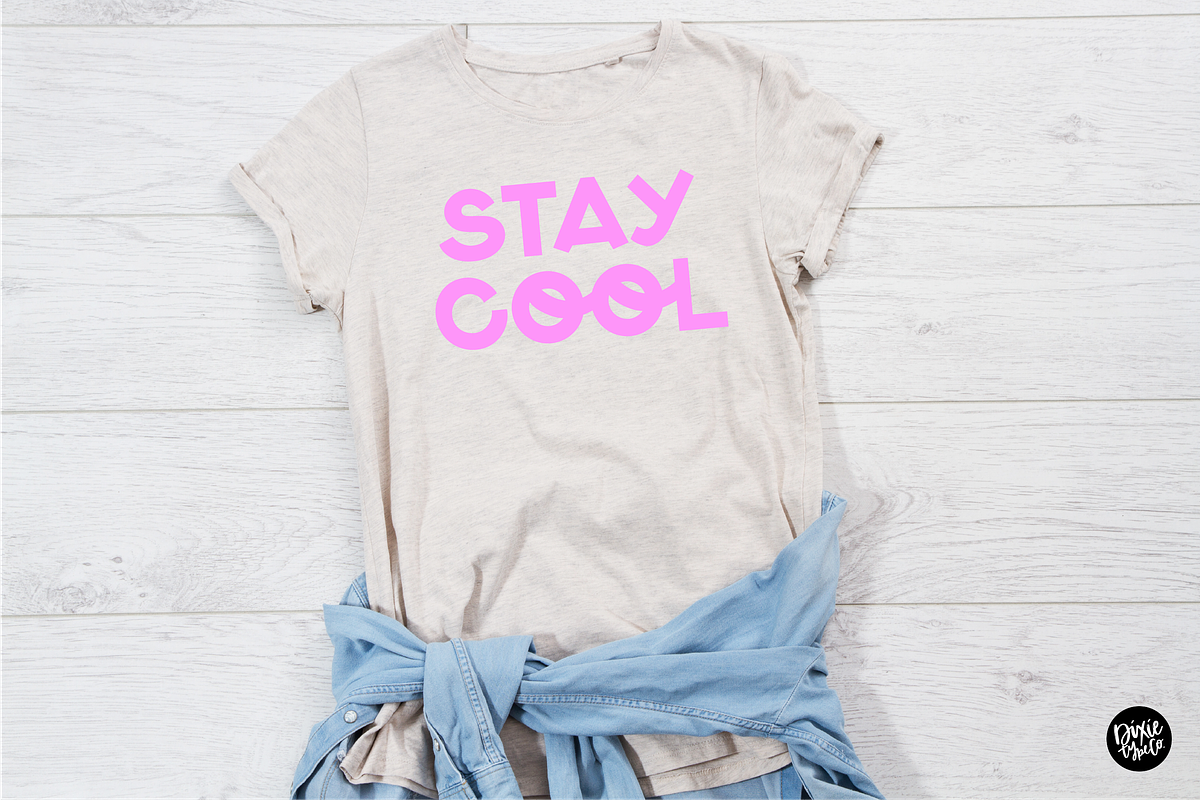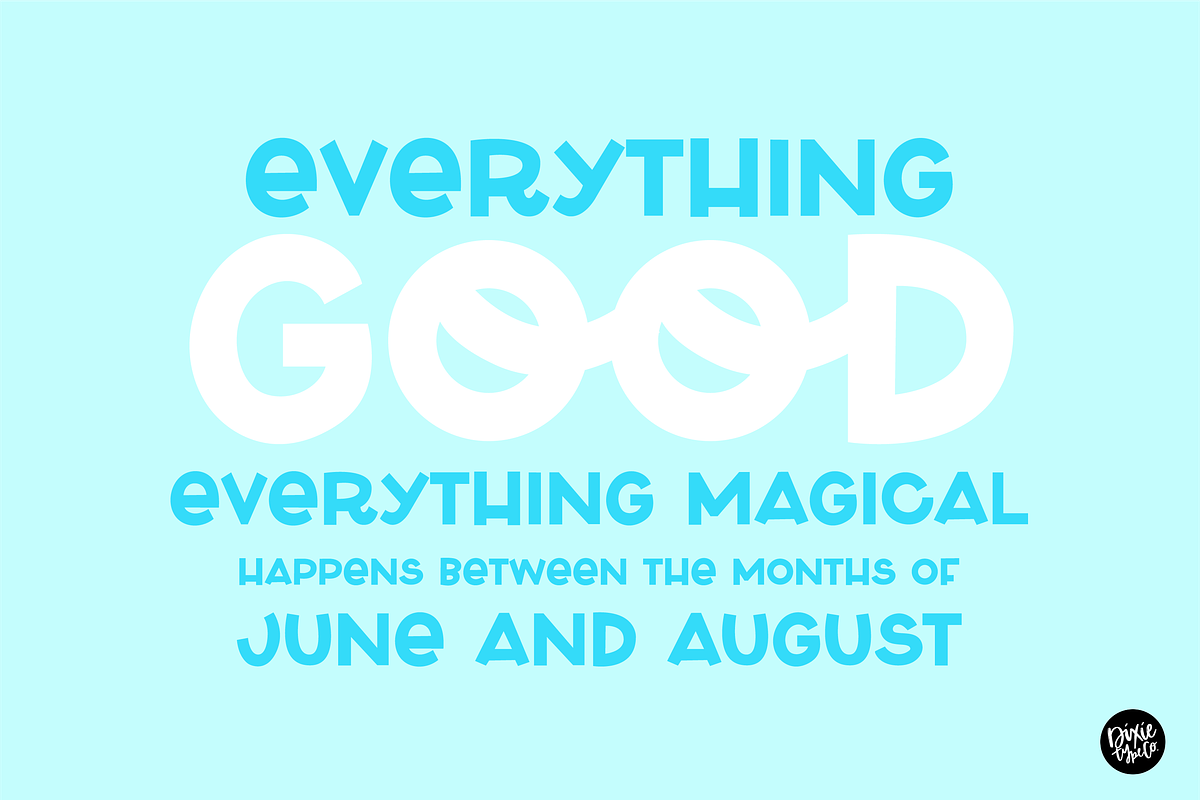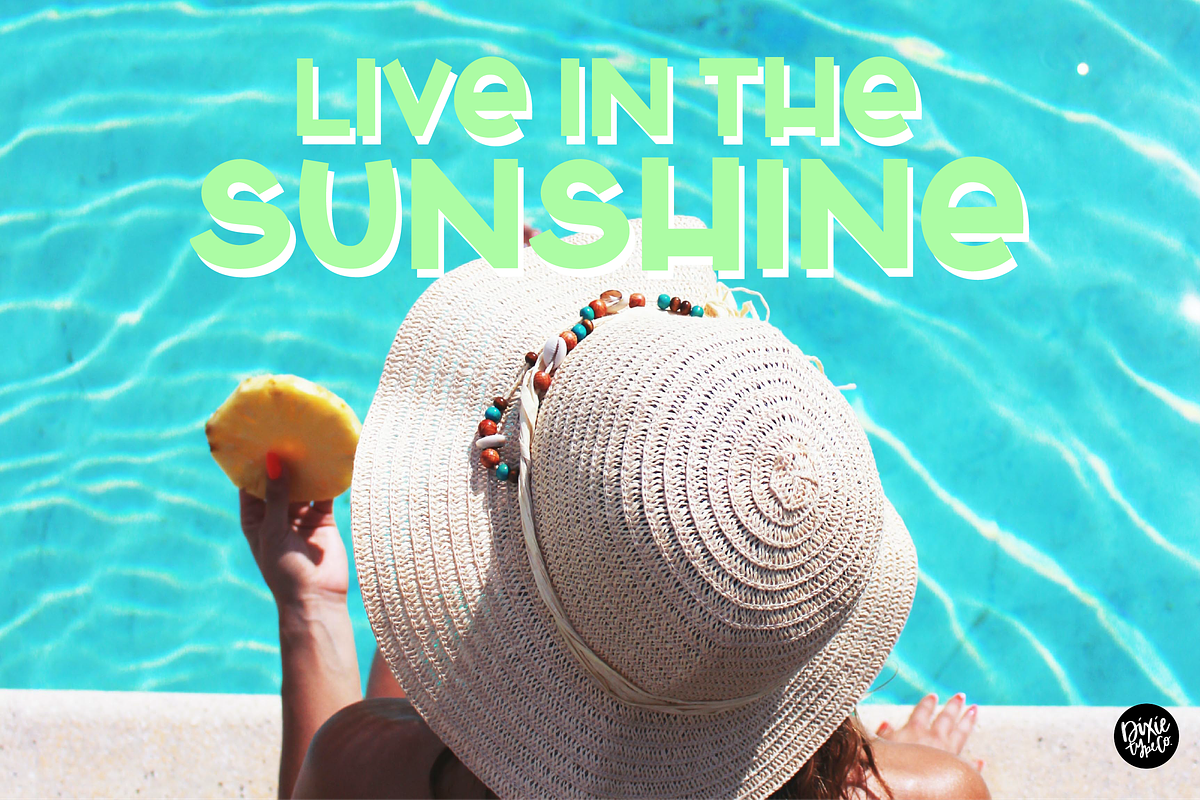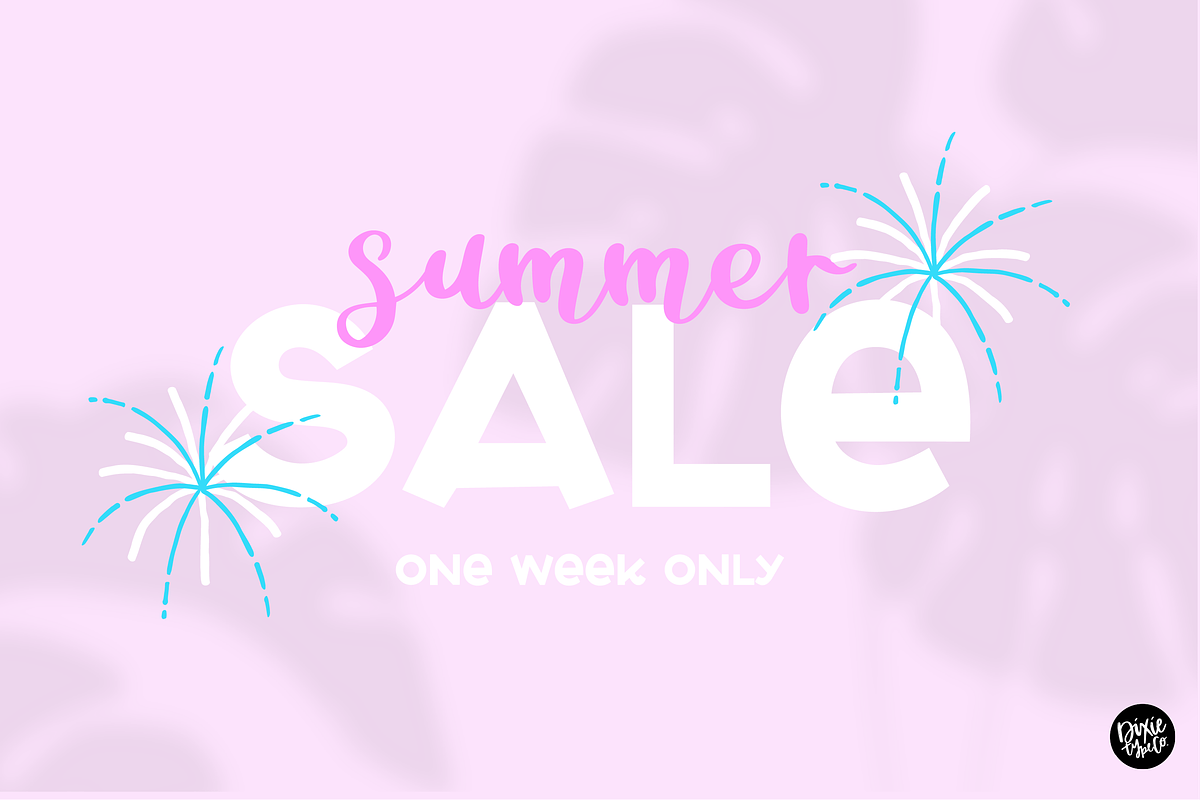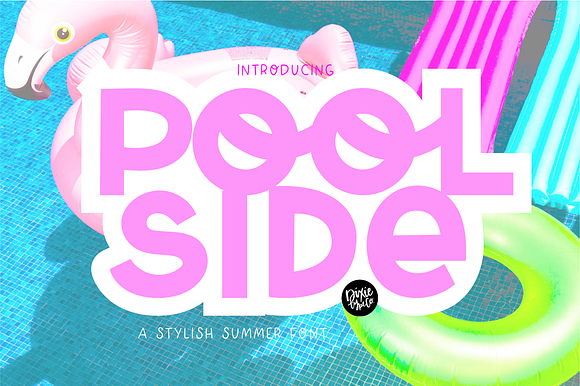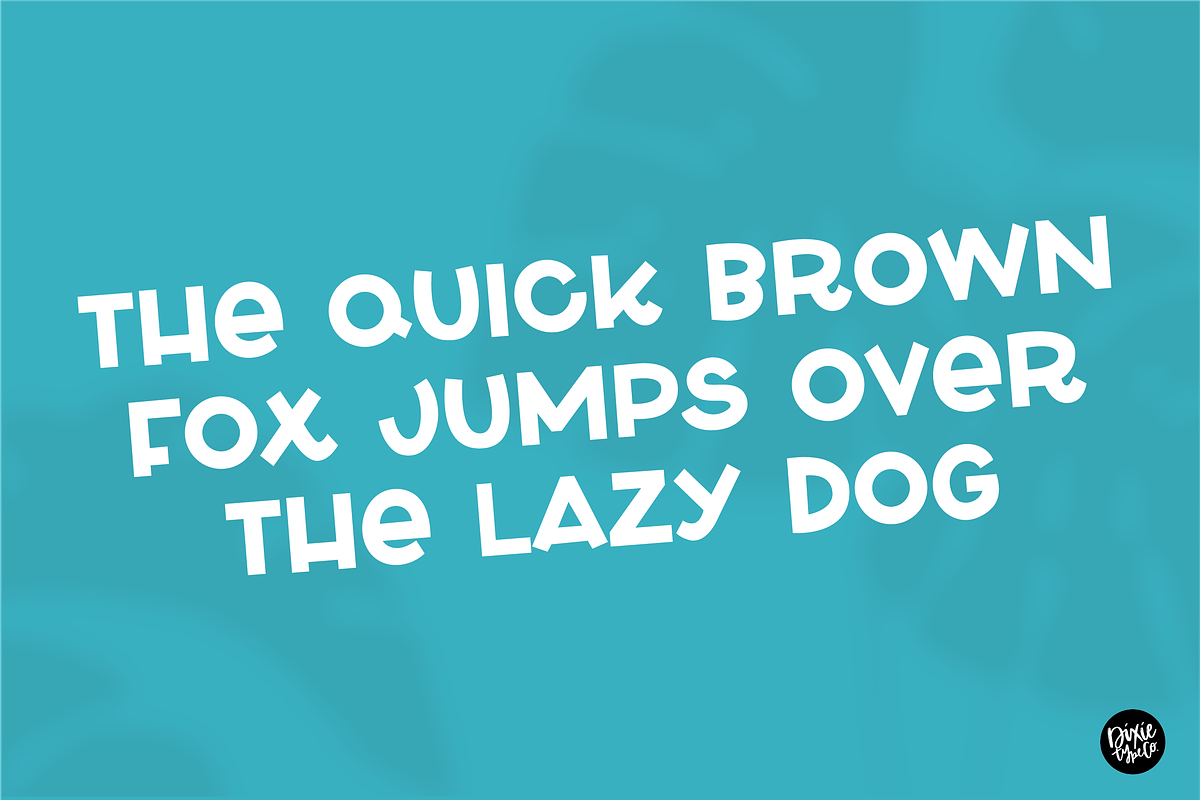
POOLSIDE a Bold Display Font
"Poolside" Hand-lettered bold summer font. This is an all-caps font.
{ A typographic font hand-lettered with love by Dixie Type Co. }
Poolside is a bold sans font that is perfect for summer. This works great as display text or for craft projects.